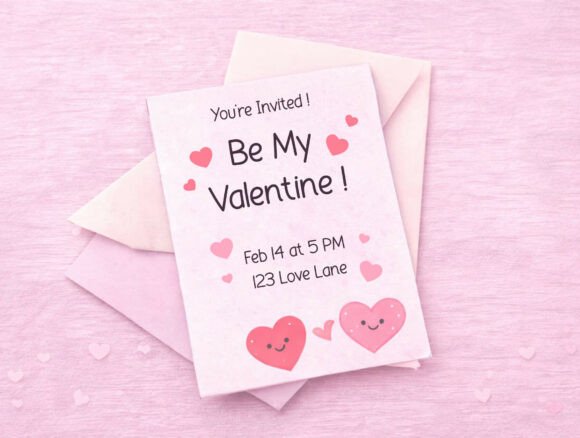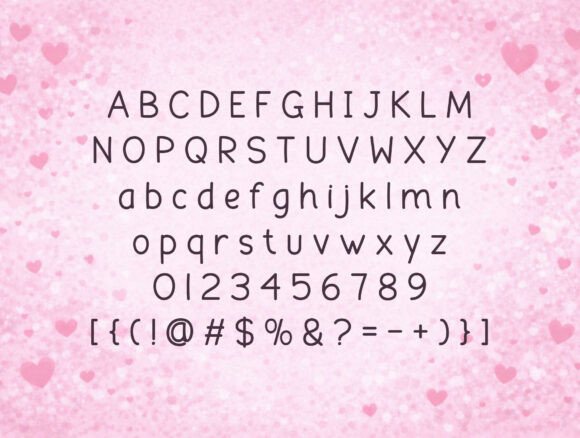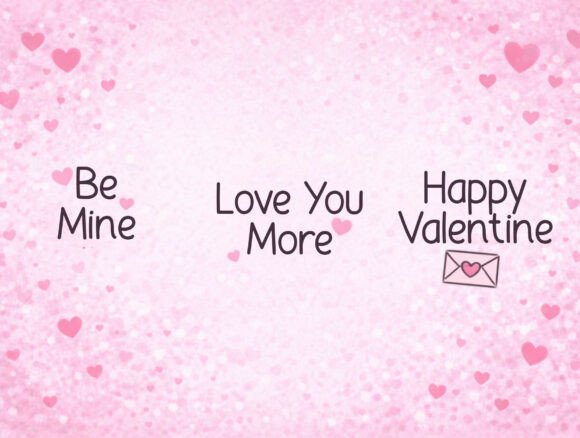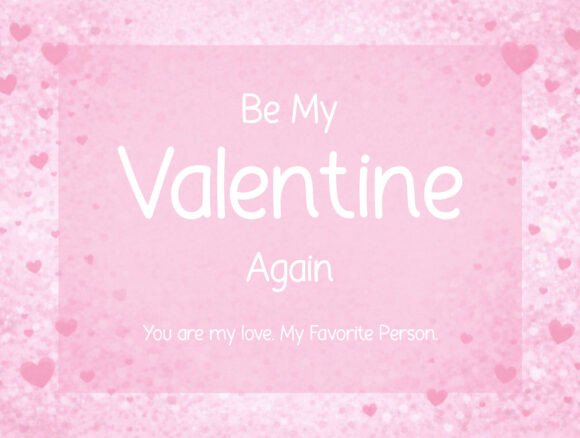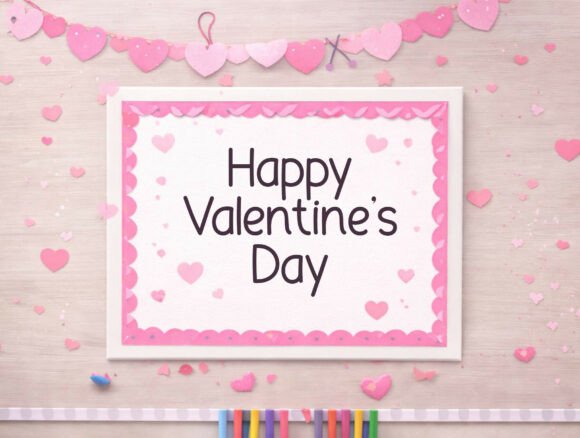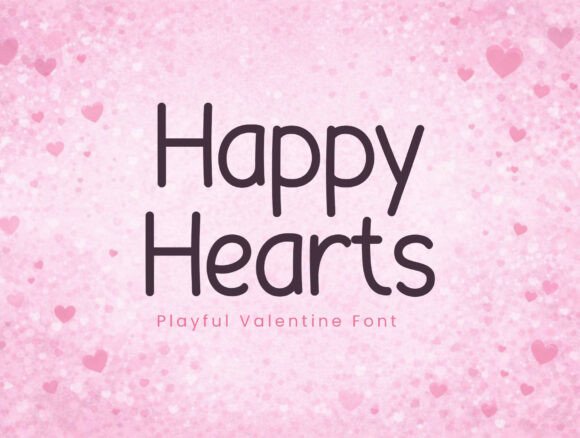
Introducing Happy Hearts Font: The Perfect Playful Handwritten Valentine Font for Kids and Creative Projects
Are you looking for a font that can add a sweet and joyful touch to your designs? Look no further than Happy Hearts, a playful handwritten Valentine font designed especially for kids and creative projects. With its cute, friendly letterforms and smooth strokes, this font is perfect for a variety of applications, from Valentine’s Day cards to classroom decorations, stickers, and more.
What Makes Happy Hearts Font So Special?
Happy Hearts font is a unique and charming addition to any design project. Its cute handwritten style and easy-to-read letterforms make it perfect for kids and adults alike. The font features uppercase and lowercase letters, numbers, and basic punctuation, making it versatile and easy to use. Whether you’re creating digital or printable designs, Happy Hearts is the ideal choice.
Perfect for Valentine’s Day and Craft Projects
Happy Hearts font is designed with Valentine’s Day and craft projects in mind. Its playful and cheerful style is perfect for creating Valentine’s Day cards, party invitations, and other holiday-themed designs. But it’s not just limited to Valentine’s Day – Happy Hearts is also great for other craft projects, such as classroom decorations, stickers, and worksheets.
Features of Happy Hearts Font
- Uppercase & Lowercase letters
- Numbers & basic punctuation
- Cute handwritten style
- Easy to read & kid-friendly
- Perfect for Valentine & craft projects
Ideal for Digital and Printable Designs
Happy Hearts font is designed to be versatile and easy to use, making it perfect for both digital and printable designs. Whether you’re creating social media graphics, blog posts, or printable art, Happy Hearts is the ideal choice. Its smooth strokes and clear letterforms ensure that your designs will look great in any format.
Use Happy Hearts Font for Cricut and Silhouette Projects
If you’re a fan of cutting machines like Cricut and Silhouette, you’ll love Happy Hearts font. Its easy-to-read letterforms and cute style make it perfect for cutting projects, such as vinyl decals, iron-on designs, and paper crafts.
Adding Warmth, Love, and Charm to Your Designs
Happy Hearts font is designed to bring warmth, love, and charm to every creation. Its playful and cheerful style is sure to delight kids and adults alike, making it perfect for designs that need a personal touch. Whether you’re creating romantic designs, fun holiday projects, or crafts for kids, Happy Hearts is the ideal choice.
Get Creative with Happy Hearts Font
With Happy Hearts font, the possibilities are endless. Here are some ideas to get you started:
- Create Valentine’s Day cards and party invitations
- Design classroom decorations and worksheets
- Make stickers and other craft supplies
- Create social media graphics and blog posts
- Make printable art and gift tags
In conclusion, Happy Hearts font is a playful handwritten Valentine font that’s perfect for kids and creative projects. With its cute, friendly letterforms and smooth strokes, this font is sure to add a sweet and joyful touch to your designs. Its versatility and ease of use make it ideal for both digital and printable designs, and its charming style is sure to delight kids and adults alike. So why wait? Get creative with Happy Hearts font today and bring warmth, love, and charm to every creation! ✨